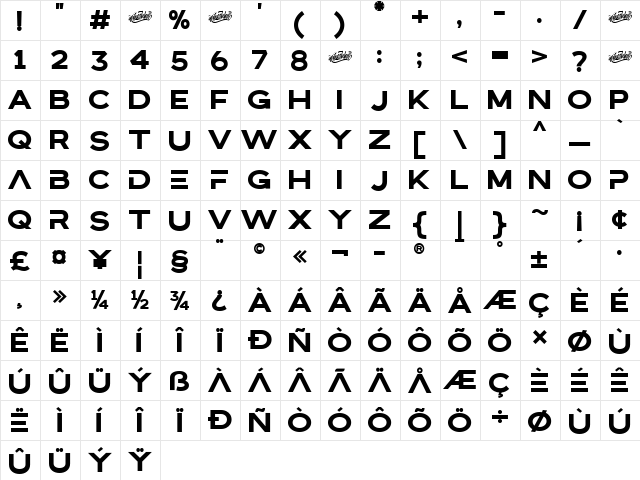
Bristone Regular
| Designer | Abdul Malik Wisnu- Almarkhatype 2019 |
Design Context for Bristone Typeface
Bristone offers clean, dependable letterforms without strong stylistic allegiance, making it a practical choice for designers who need flexibility.
Pro Tip: Pair Bristone with a font of contrasting weight or personality to build a more expressive typographic hierarchy.